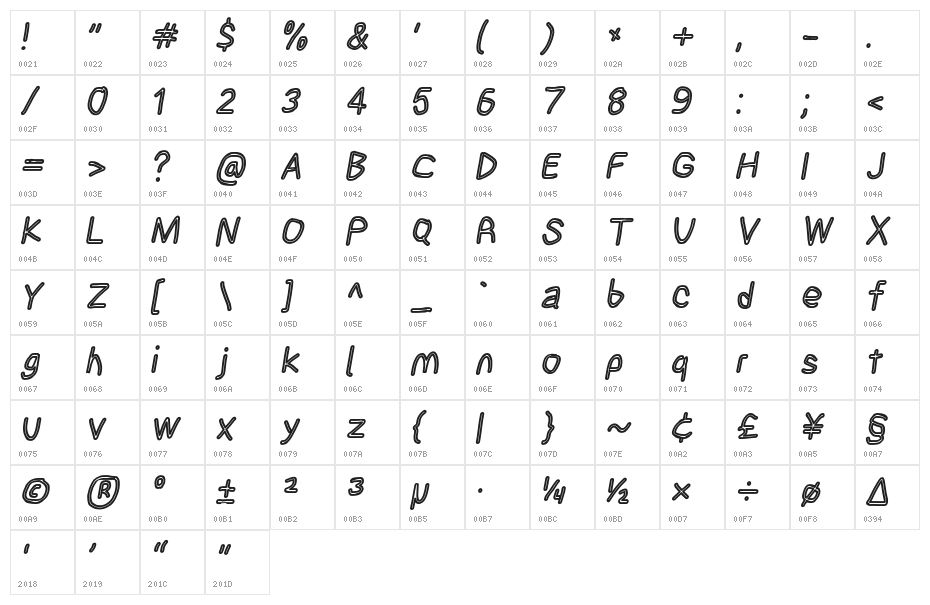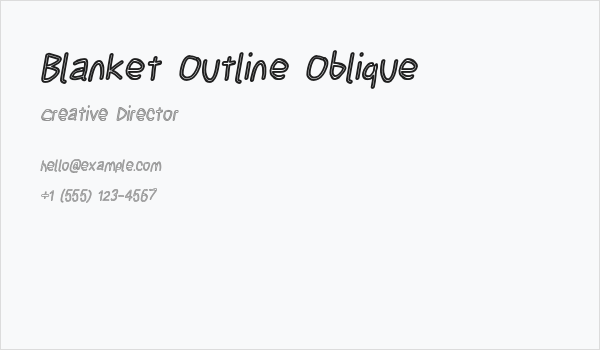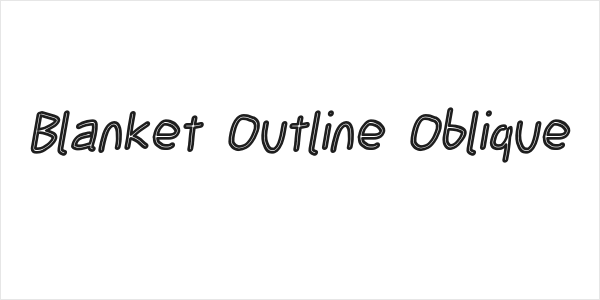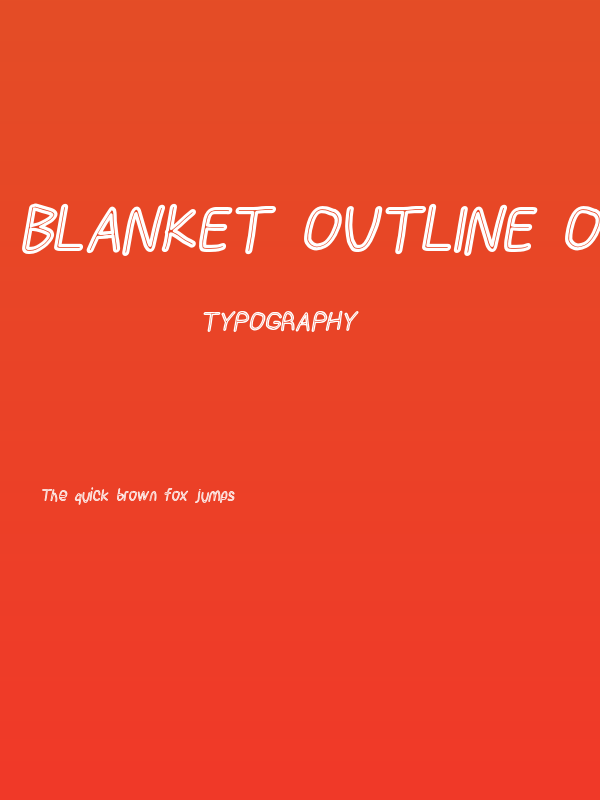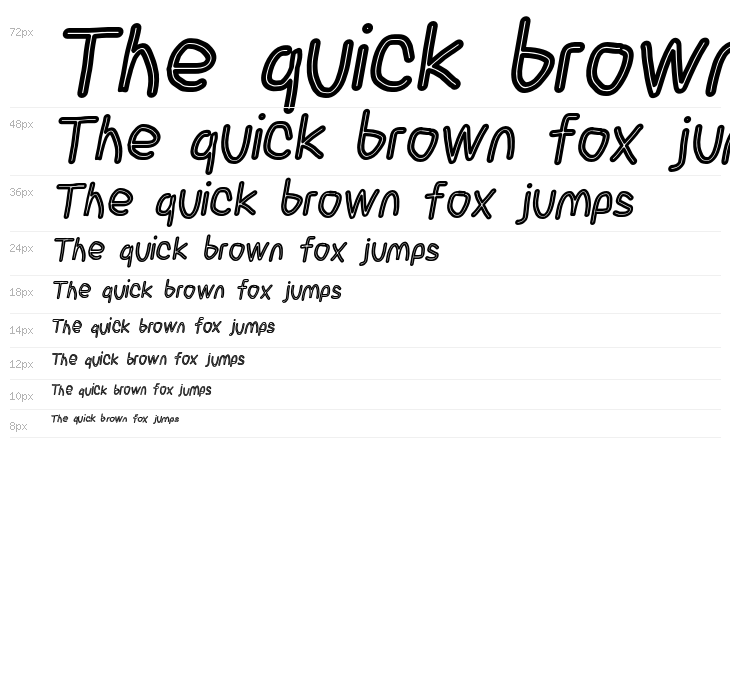
Blanket Outline Oblique Font
Blanket Outline Oblique Description
This font features a playful and dynamic style with an outlined, oblique design. The characters are bold and slightly slanted, giving a sense of movement and energy. Each letter is outlined, creating a hollow effect that adds depth and dimension. The font maintains a consistent stroke width throughout, ensuring readability while still being visually engaging. The uppercase and lowercase letters are well-proportioned, and the numerals are clear and distinct. Special characters are included, matching the overall style and enhancing the font's versatility.
| Overall Style | Playful, Energetic, Modern |
| Use Case | Headlines, Posters, Branding |
| Proposed Projects | Ideal for children's books, playful branding, posters, and creative projects that require a fun and energetic typeface. |